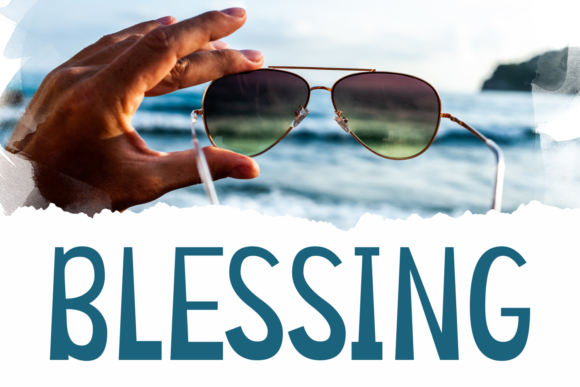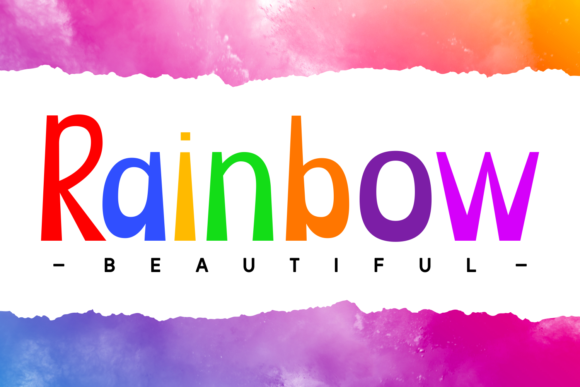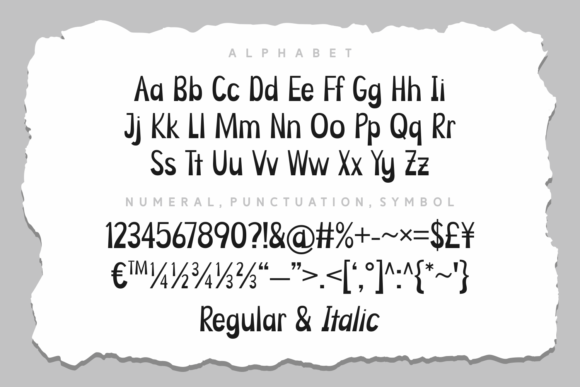
Introduction to Mistery Lovine Font
As a designer, you know the rush of excitement when a new project comes along and you get to unleash your creativity. You’ve been staring at a blank canvas, trying to find the perfect words to capture the essence of your idea, when suddenly, the perfect font pops into your head. For many, that font is the Mistery Lovine Font – a sleek, modern display font that adds a touch of sophistication to any design.
Whether you’re working on a branding project, creating a logo, or designing a t-shirt for a fashion brand, the Mistery Lovine Font is an invaluable resource. Available in two variants – Italic and Regular – this high-quality font is perfect for adding a touch of elegance to your design. With its transparent background, it’s easy to layer and customize to fit your creative vision. And the best part? It’s available for free download, making it an essential design resource for any project.
Key Features of Mistery Lovine Font
- High-quality design resource ideal for creative projects, offering a unique and mysterious aesthetic.
- Includes a range of characters, including uppercase and lowercase letters, numbers, and punctuation marks, to ensure comprehensive coverage.
- Perfect for use in a variety of creative projects, from editorial and advertising to branding and packaging design.
Honest Review: Mistery Lovine Font
As a designer, I’m always on the lookout for high-quality design resources to elevate my creative projects. The Mistery Lovine Font caught my attention, and I decided to give it a try. Here’s my honest review.
- ✨ The font’s unique, mystical design is perfect for adding a touch of mystery to my projects.
- ✨ The transparent background makes it easy to use in various design scenarios.
- ⚠️ The font’s design can be a bit too ornate for some projects, which might make it difficult to read in certain contexts.
- ⚠️ The font family is relatively small, which might limit its versatility in certain design scenarios.
Overall, I’m impressed with the Mistery Lovine Font. It’s a great addition to any designer’s toolkit, especially for creative projects that require a touch of mystery and elegance. While it has some limitations, the font’s unique design and transparent background make it a valuable resource for designers looking for a high-quality, free download.
Tips for Getting the Most Out of Mistery Lovine Font
Experiment with different font sizes, colors, and styles to add visual interest to your design project. Use the font in combination with other design elements to create a unique look.
The Mistery Lovine Font is ideal for creative projects such as wedding invitations, social media graphics, and marketing materials. Its unique design and transparent background make it a versatile choice for various design applications.